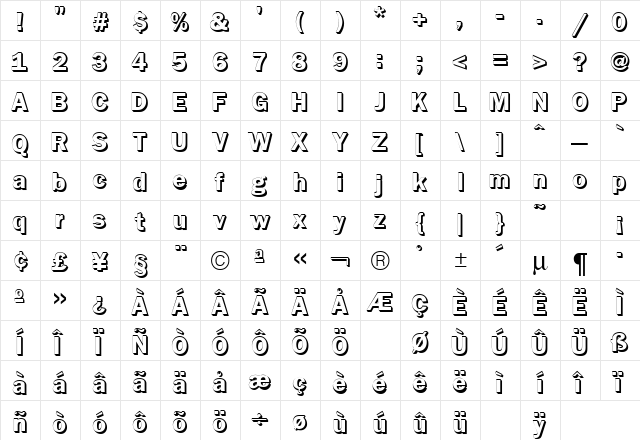
Franklin Gothic Outline Shadow Regular
Design Context for Franklin Gothic Outline Shadow Typeface
Franklin Gothic Outline Shadow brings ornamental detail and strong personality to headlines and identities, where visual impact matters more than quiet functionality.
Font Pairing: Pair with a clean neutral sans-serif for body copy to let Franklin Gothic Outline Shadow's character lead without overwhelming the composition.
Pro Tip: Use Franklin Gothic Outline Shadow exclusively at display sizes — it was designed to be seen, not read at length. Let a neutral companion handle body copy.